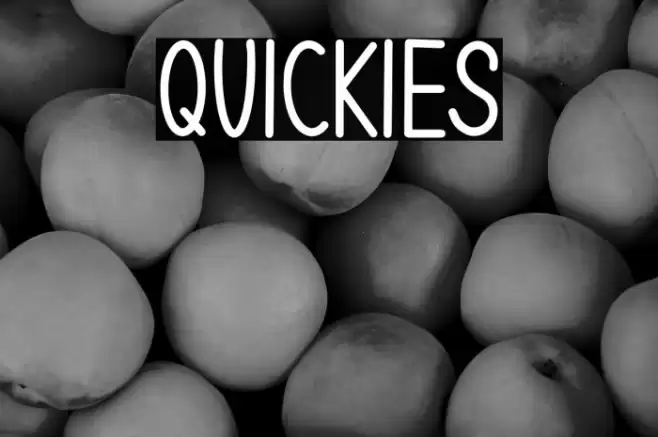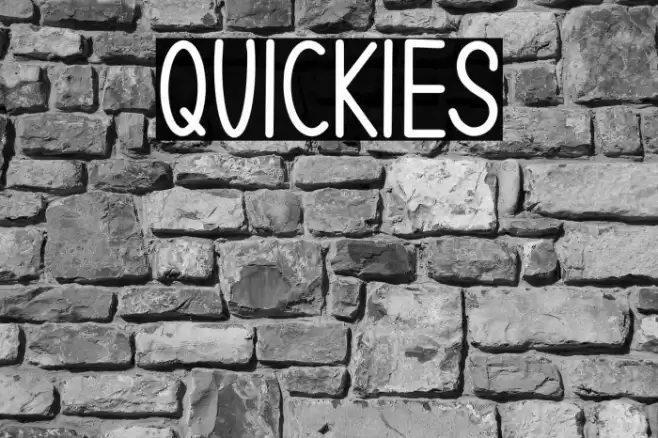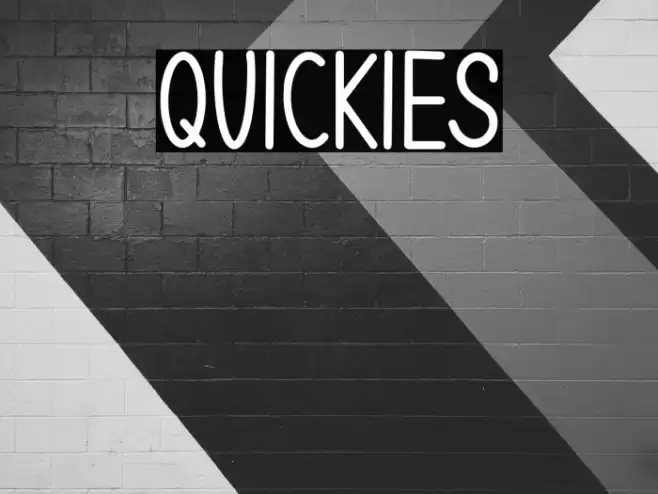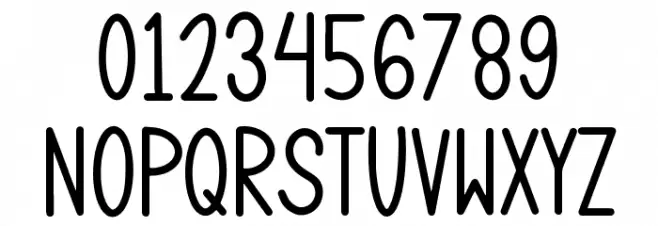
QUICKIES Font
QUICKIES Description
This font features a playful and rounded style, characterized by its smooth curves and uniform stroke width. The letters are tall and slightly narrow, giving it a condensed appearance without sacrificing readability. The rounded terminals and consistent line thickness contribute to a friendly and approachable aesthetic. The numerals and special characters maintain the same playful style, ensuring cohesion across all characters. This font is versatile, suitable for both digital and print media, and can add a touch of whimsy to any project.
A playful, rounded font with smooth curves and uniform stroke width from Uncategorized fonts.
- Proposed Projects: Ideal for children's books, playful branding, casual invitations, and social media graphics.
- Width: Condensed
- Overall Style: Playful
- Use Case: Headlines, Logos, Casual Text